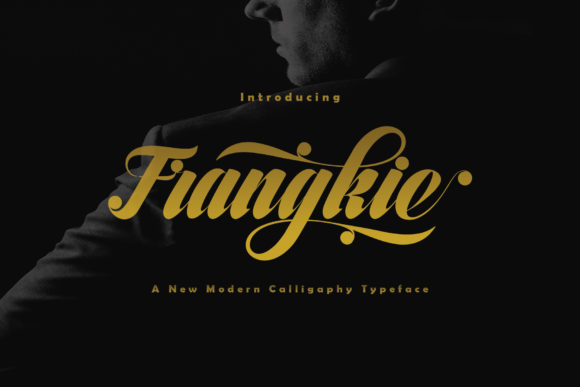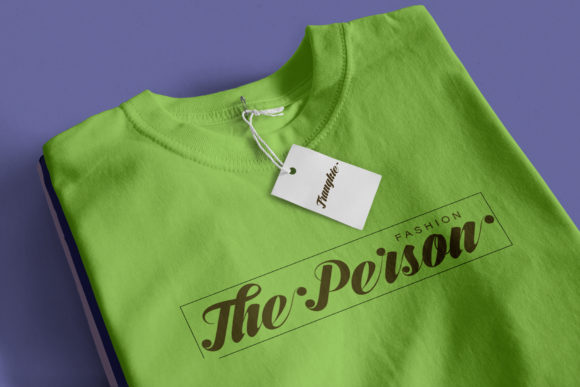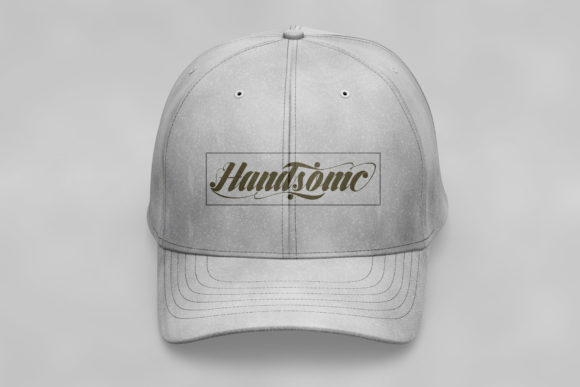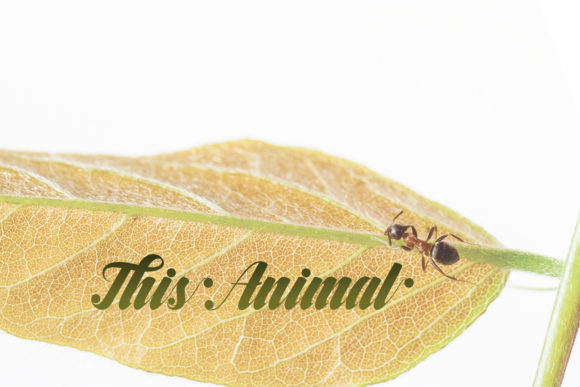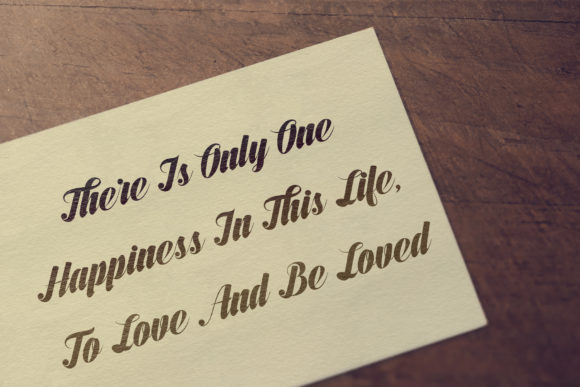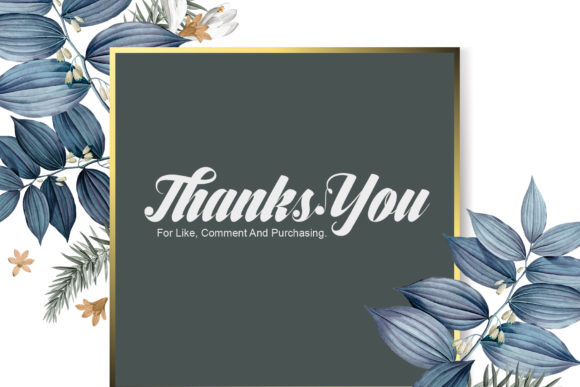
HomeScript FontsFrangkie Font Script Fonts Frangkie Font FacebookXPinterestWhatsApp Frangkie Font Poster 2 Frangkie Font Poster 3 Frangkie Font Poster 4 Frangkie Font Poster 5 Frangkie Font Poster 6 About Frangkie Font Frangkie is a charming and sophisticated handwritten font with a bold charm. Get inspired by its unique style! DOWNLOAD ON CREATIVE FABRICAThis font is sold and delivered by Creative Fabrica. Font Canyon may earn a commission if you buy through this link. People also explored Thirtylane Font Sweety Font Ekistra Hello Tiffany Font Tiara Williams Font Star Night Font Retro Font Winest off the Collection Font Arcopolist Font 372 0 TagsFrangkie Font Previous articleAutumn Happiness FontNext articleLove the Trees Font LEAVE A REPLY Cancel reply Comment: Please enter your comment! Name:* Please enter your name here Email:* You have entered an incorrect email address! Please enter your email address here Website: Save my name, email, and website in this browser for the next time I comment. Personal Use Free Kitchen Blue Personal Use Free Read more about this font Sweet Someday Personal Use Free Read more about this font Rina Personal Use Free Read more about this font Boronic Personal Use Free Read more about this font BLOG The 10 Best Handwriting Fonts to Add Personality to Your Designs 10 of the Best Handwriting Fonts for Adding Personality to Your Designs There will undoubtedly be no other better choice than handwriting fonts to give... Elegant Wedding Invitation Fonts – Handwritten & Script Fonts Free Fonts Risk: Why Free Fonts Can Be Dangerous for Designers Fonts That Capture the Spirit of New York City